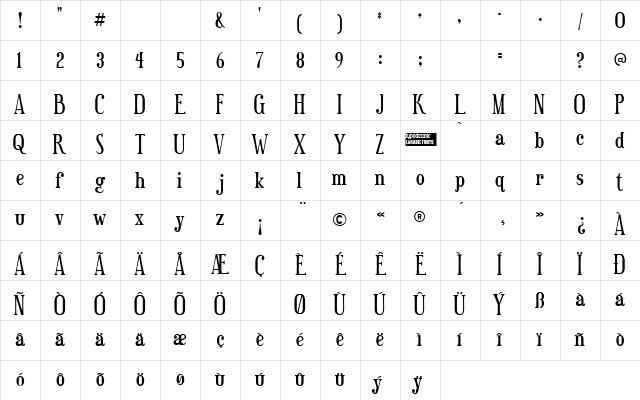
Euphorigenic Regular Free Font
Euphorigenic Regular
Design Context for Euphorigenic
Euphorigenic is a composed and adaptable typeface that performs quietly and consistently across a wide range of design contexts.